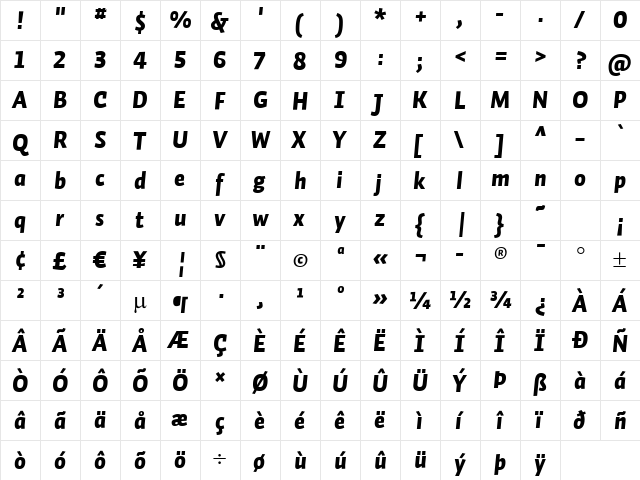
Auto 1 Black Italic LF
Design Context for Auto 1 Typeface
Auto 1 takes a measured approach to typography — its balanced proportions and neutral character make it a reliable workhorse for both digital and print work. The slanted form adds forward momentum and visual energy.
Pro Tip: Try Auto 1 for annotation and caption copy alongside an upright companion — the contrast in angle creates a dynamic but ordered typographic system.